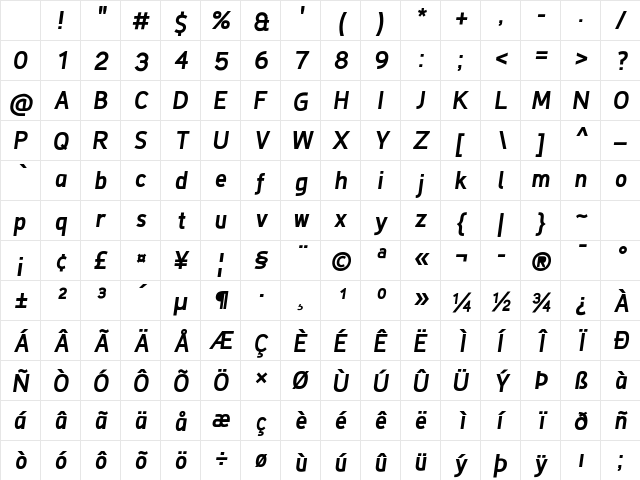
Complete De Luxe Next Italic glyph index. Displaying only characters natively supported by De Luxe Next Italic font.
De Luxe Next is a composed and adaptable typeface that performs quietly and consistently across a wide range of design contexts. The slanted form adds forward momentum and visual energy.